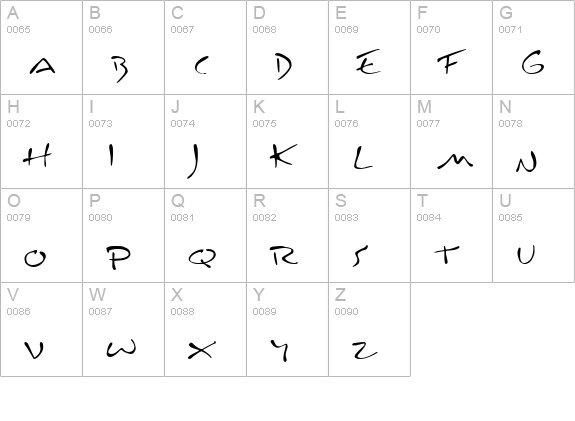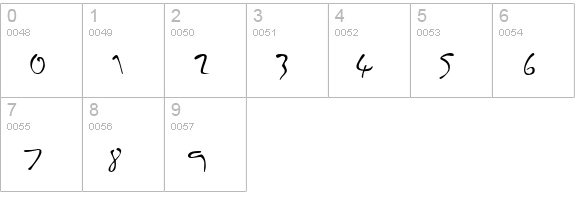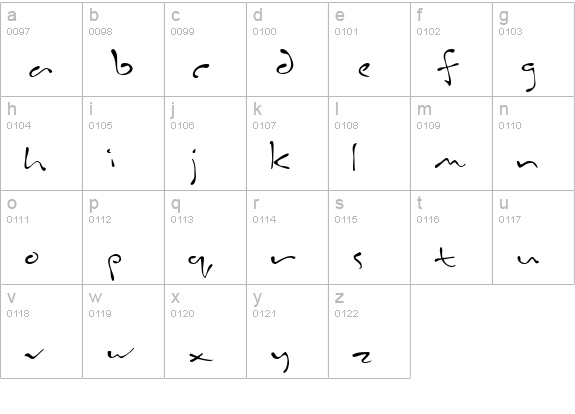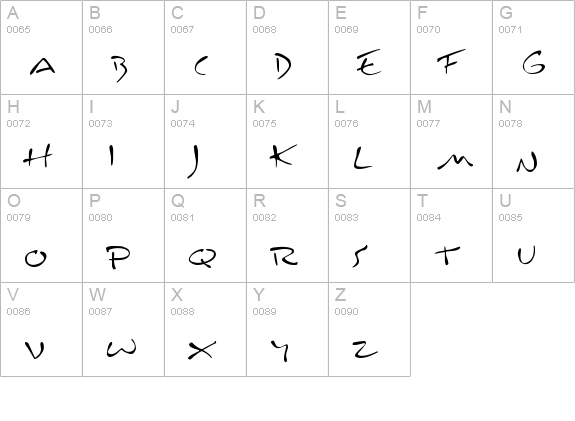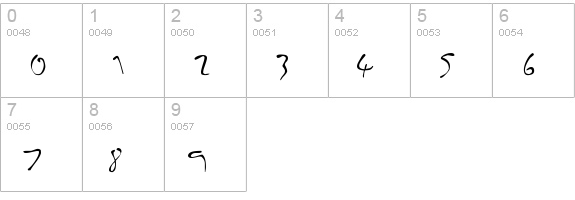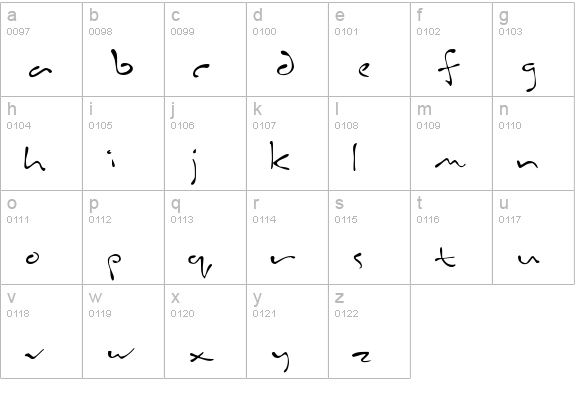
Inkburrow font is a stunning display typeface that effortlessly captures a sense of elegance and sophistication. With its intricate details and graceful curves, this font is perfect for adding a touch of luxury to any design project. The unique feature of Inkburrow font lies in its hand-drawn appearance, which gives it a charming and artistic flair. Each letter seems to have been meticulously crafted with a pen, creating a sense of authenticity and character. Whether you are designing a logo, creating a wedding invitation, or crafting a social media post, Inkburrow font will undoubtedly make your design stand out from the crowd. Its versatility allows it to be used in a wide range of applications, from formal and professional to whimsical and playful. One of the best things about Inkburrow font is that it is freely available to download at FontsMarket.com. This means that you can easily access this stunning typeface without having to spend a penny. So, if you're looking for a high-quality font that adds a touch of elegance to your designs, Inkburrow font is the perfect choice. Download it today and let your creativity soar!